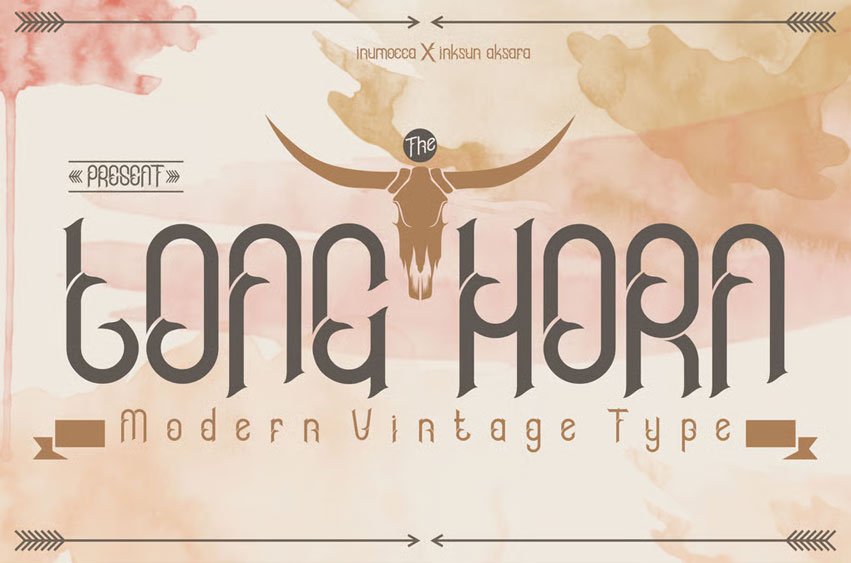
Longhorn Font fits in headlines, logos, posters, flyers, invitations, name cards, branding materials, print media, editorial layouts, and many more.
Crafted with high attention to detail, it gives you the best design experience.